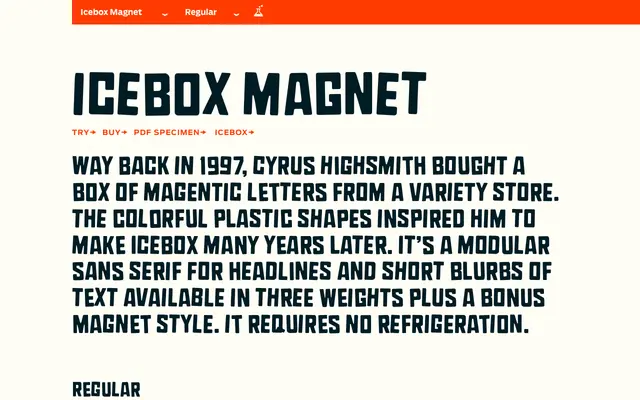
Icebox Magnet
A modular display sans by Cyrus Highsmith, drawn from the visual language of plastic magnetic refrigerator letters and available in three weights plus a Magnet variant.
Designed by Cyrus Highsmith in 2012, the family traces its origins to a box of magnetic plastic letters he bought in 1997. Each character is built from repeating geometric modules that echo the chunky uniformity of those toy letterforms. With three weights and a bonus Magnet style, it suits headlines and short copy where a playful geometric rigour is welcome.
Icebox Magnet is a modular sans serif built from uniform geometric components, inspired by plastic magnetic letters, intended for headlines rather than continuous text.